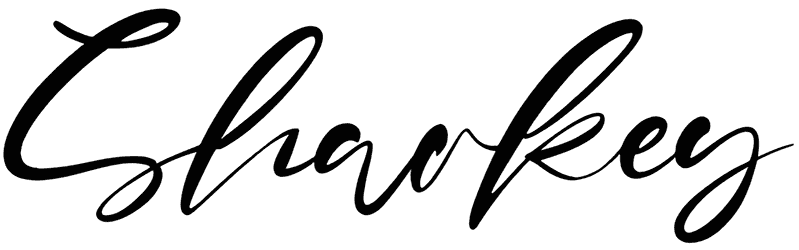
Sharkey Font
Improve the fresh and stunning look and add an artistic feel to your design with today’s captivating calligraphy font. However, the sophisticated letters make it tricky to read, and instead, give your texts and titles a cool and friendly vibe. Sharkey font comes with a stellar design and remarkably complements the overall theme of your projects.
Let the game start and use the dramatic aesthetic of this freebie in your cards, covers, posters, ads, and anything that might call for a bit of glow.